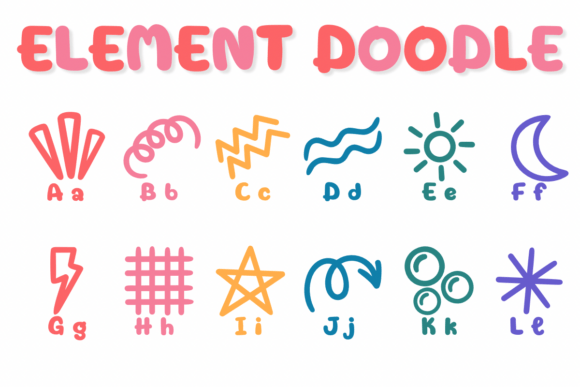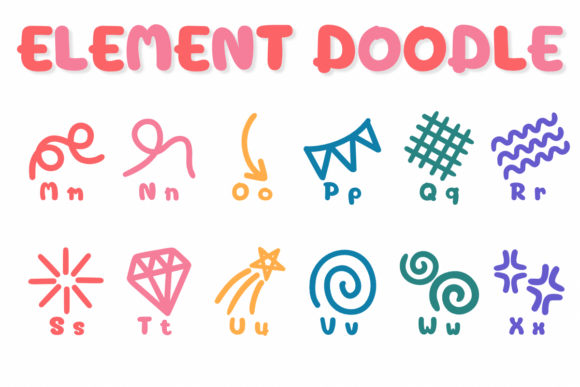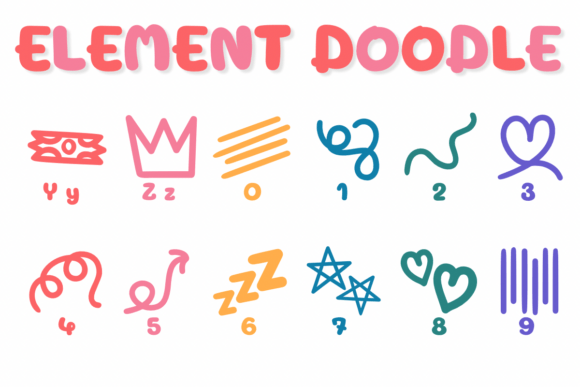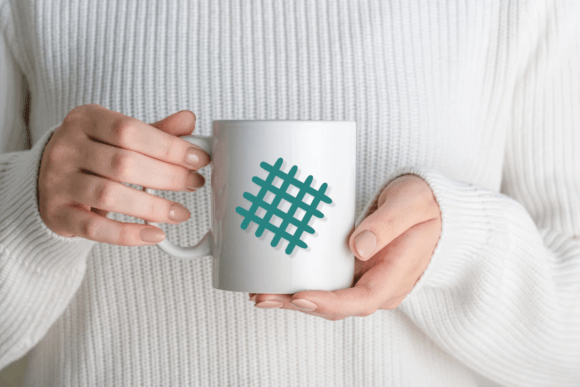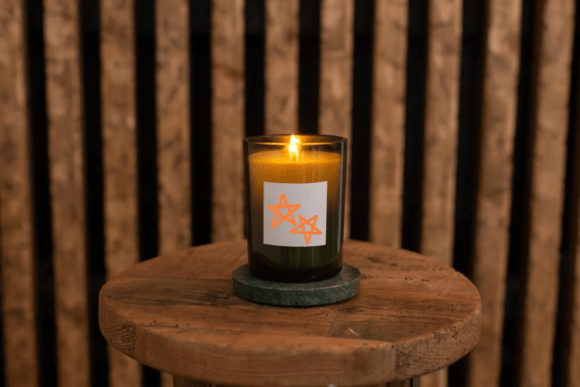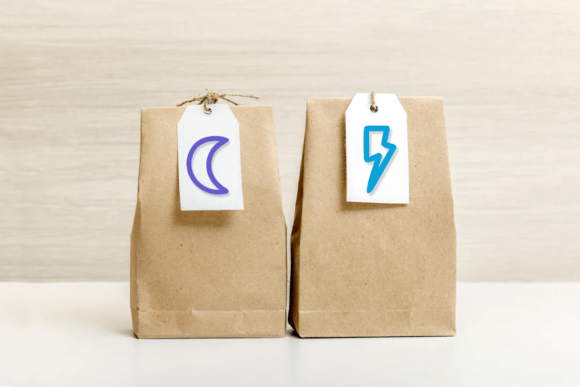
The Ultimate Guide to Element Doodle Font: Unlocking Creative Possibilities
I’ll never forget the time I was working on a wedding invitation project, and my client asked me to create a custom design that reflected their playful and adventurous personalities. As I scoured the internet for the perfect font, I stumbled upon Element Doodle – a dingbats font with an abstract theme that completely transformed my design. In this article, I’ll share my experience with Element Doodle, its features, and how to make the most of it in your creative projects.
What is Element Doodle Font?
Element Doodle is a unique dingbats font that adds an abstract touch to your designs. Its versatility makes it perfect for a wide range of creative projects, including wedding invitations, DIY crafts, decorations, logos, and more.
My Honest Review of Element Doodle
Here’s what I love about Element Doodle:
- ✨ Unique and abstract design: Element Doodle’s quirky style adds a touch of personality to any project.
- ✅ Highly versatile: Use it for various creative projects, from digital designs to print materials.
- 🎨 Easy to customize: Experiment with different colors, sizes, and arrangements to match your project’s tone.
However, I did notice a few quirks:
- 🤔 Limited character set: As a dingbats font, Element Doodle’s character set might be limited compared to traditional fonts.
- ⚠️ May require manual adjustments: Depending on the design, you might need to manually adjust the glyphs to achieve the desired look.
The Story Behind Element Doodle
Element Doodle was inspired by the abstract art movement of the 20th century. Its creator aimed to capture the playful, spontaneous essence of doodling and translate it into a digital font. The result is a unique and versatile font that adds a touch of personality to any design.
| Font Name | Element Doodle Font |
| Author | Chonada |
| What type of projects is Element Doodle best suited for? | Element Doodle is perfect for creative projects like wedding invitations, DIY crafts, decorations, logos, and more. |
| Can I combine Element Doodle with other fonts? | Yes, Element Doodle can be paired with other fonts to create a unique and visually appealing design. Experiment with different font combinations to find the perfect match. |